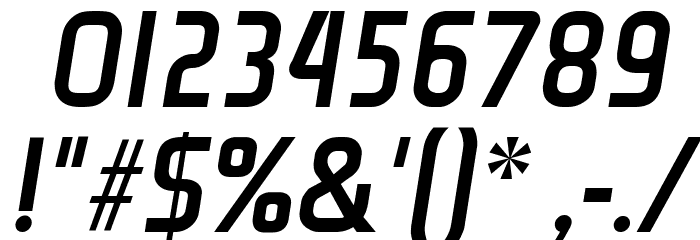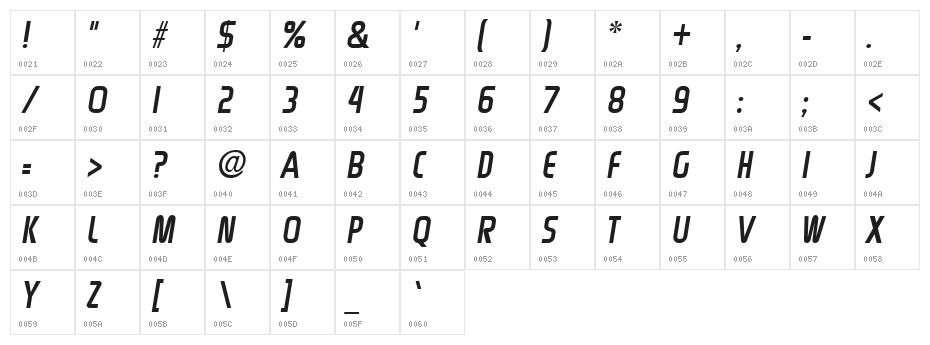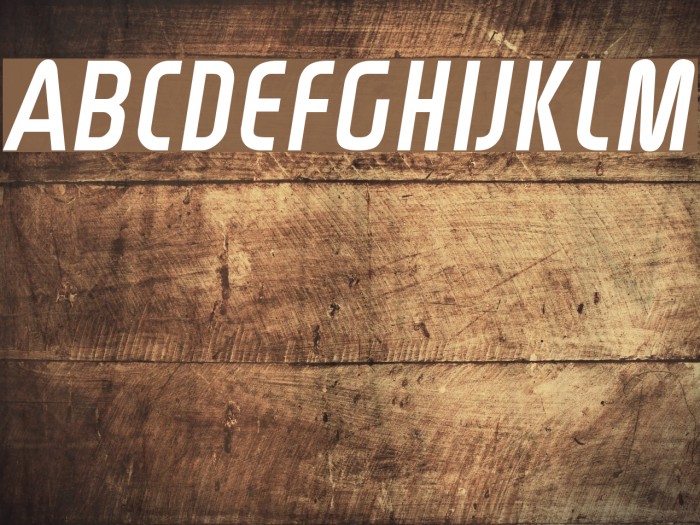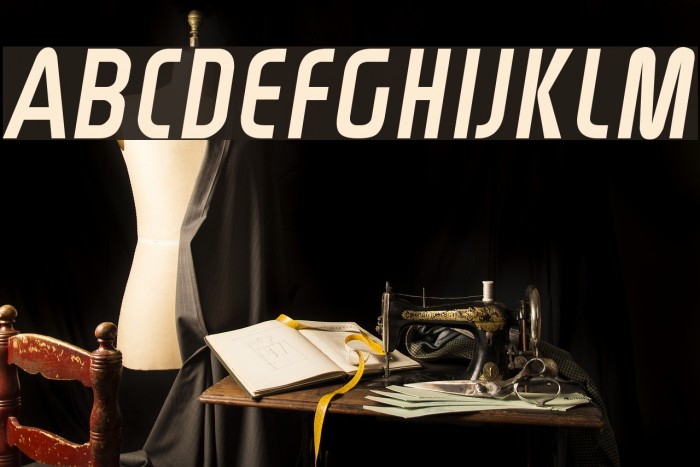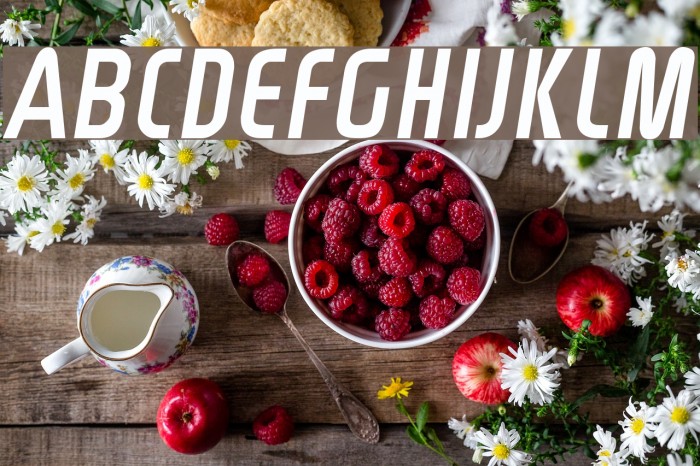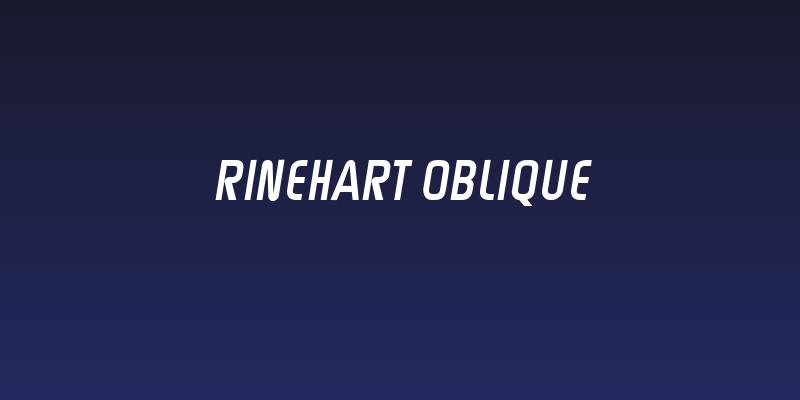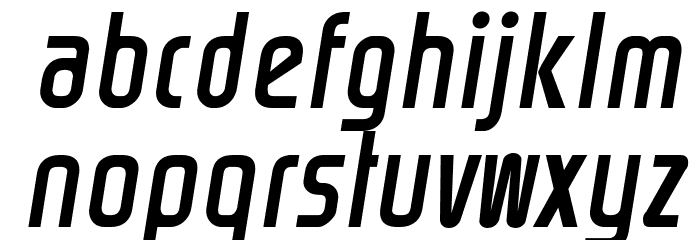
Rinehart Oblique Font
Rinehart Oblique Description
This font features a sleek, modern design with a distinct oblique slant, giving it a dynamic and forward-moving appearance. The characters are crafted with a uniform stroke width, contributing to a clean and streamlined look. The uppercase and lowercase letters maintain a consistent style, with slightly rounded edges that soften the overall geometric structure. The numerals are clear and easily readable, while the special characters are well-integrated, maintaining the font's cohesive aesthetic. This font's contemporary style makes it suitable for a variety of digital and print applications.
Use CaseHeadlines, Body text, Logos
Proposed ProjectsIdeal for branding, advertising, digital media, and editorial design projects.